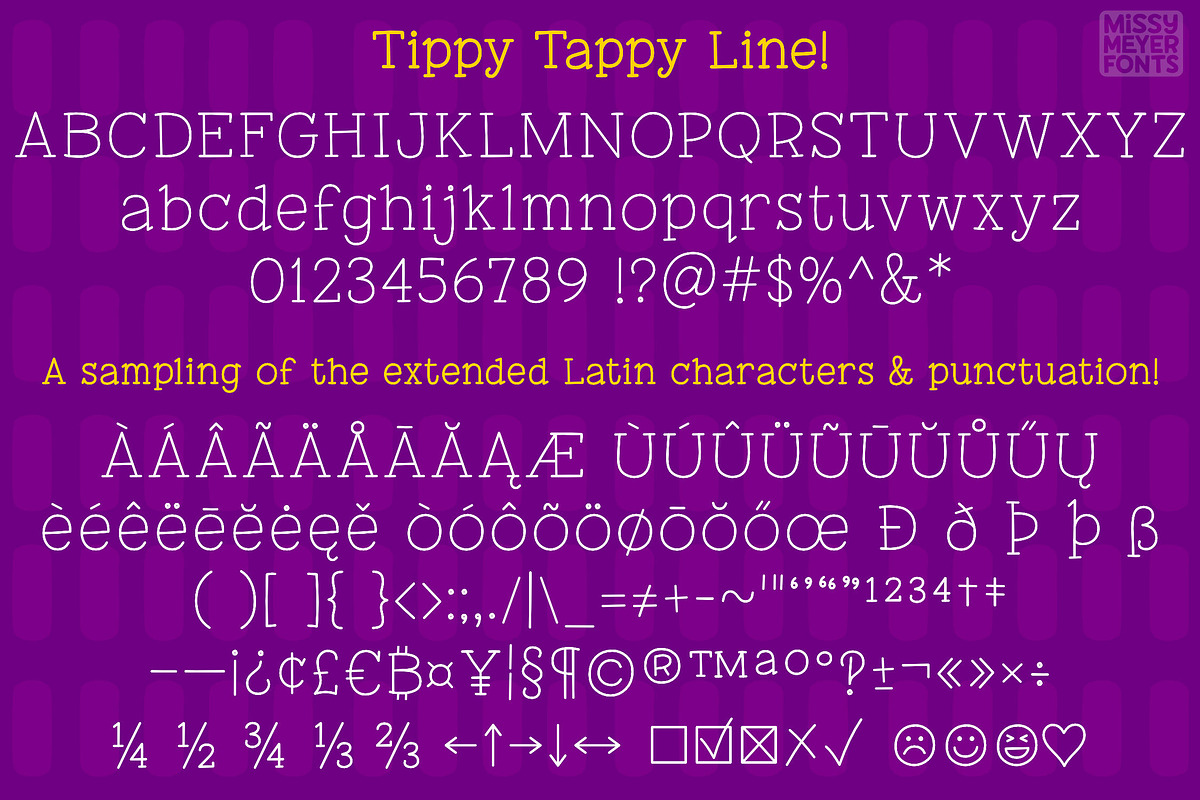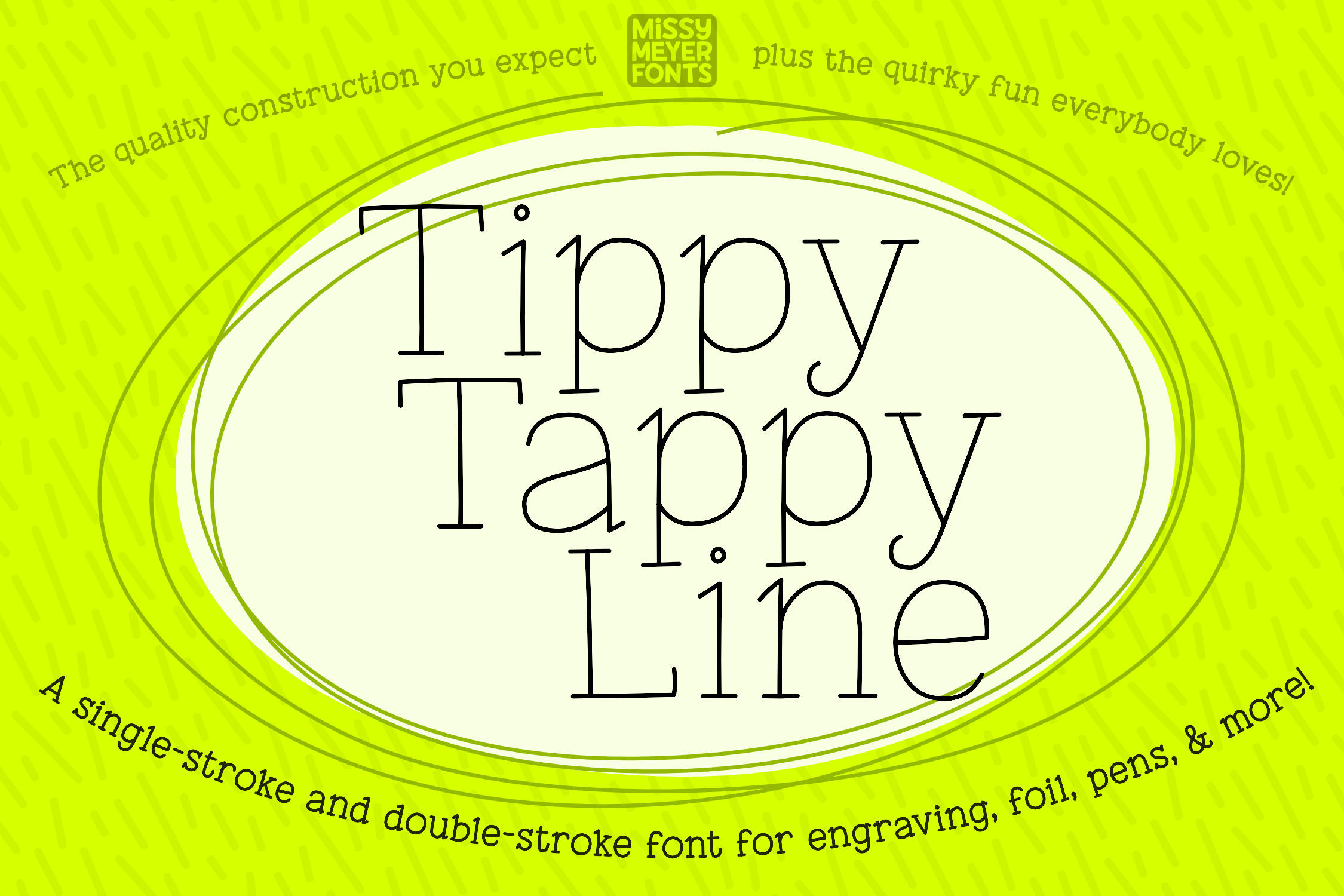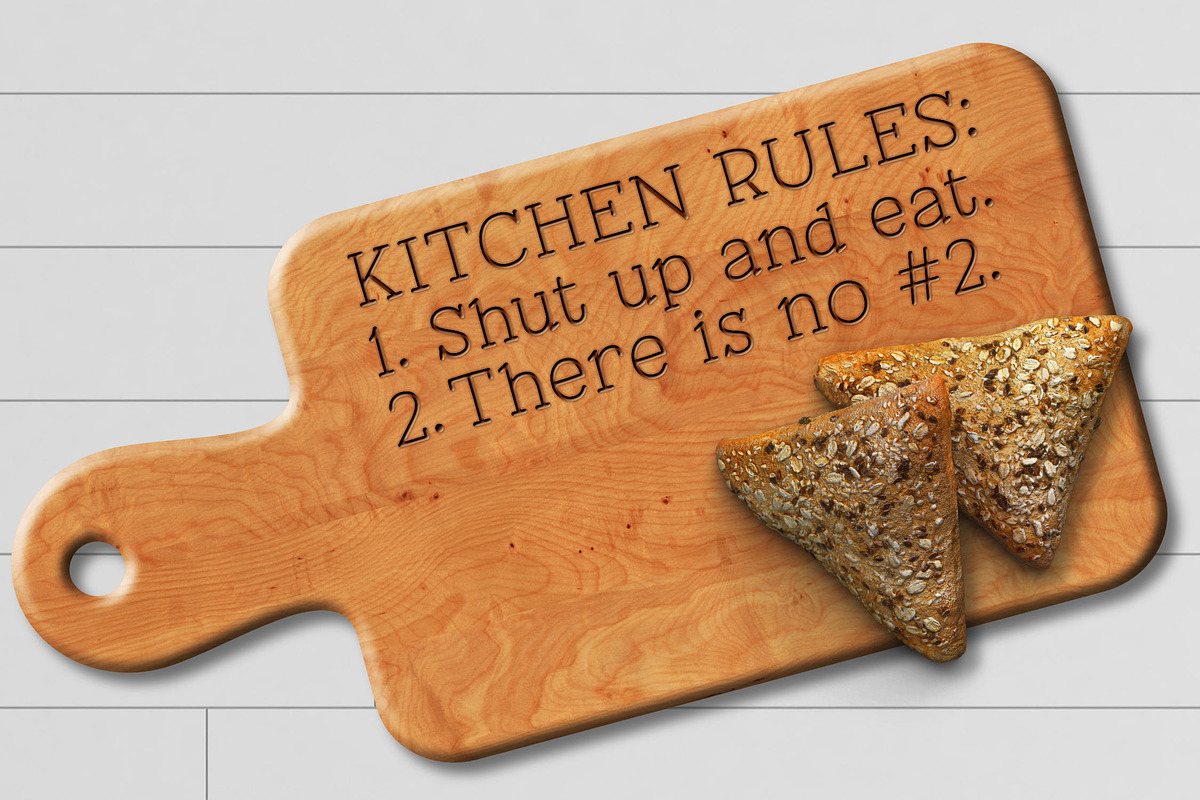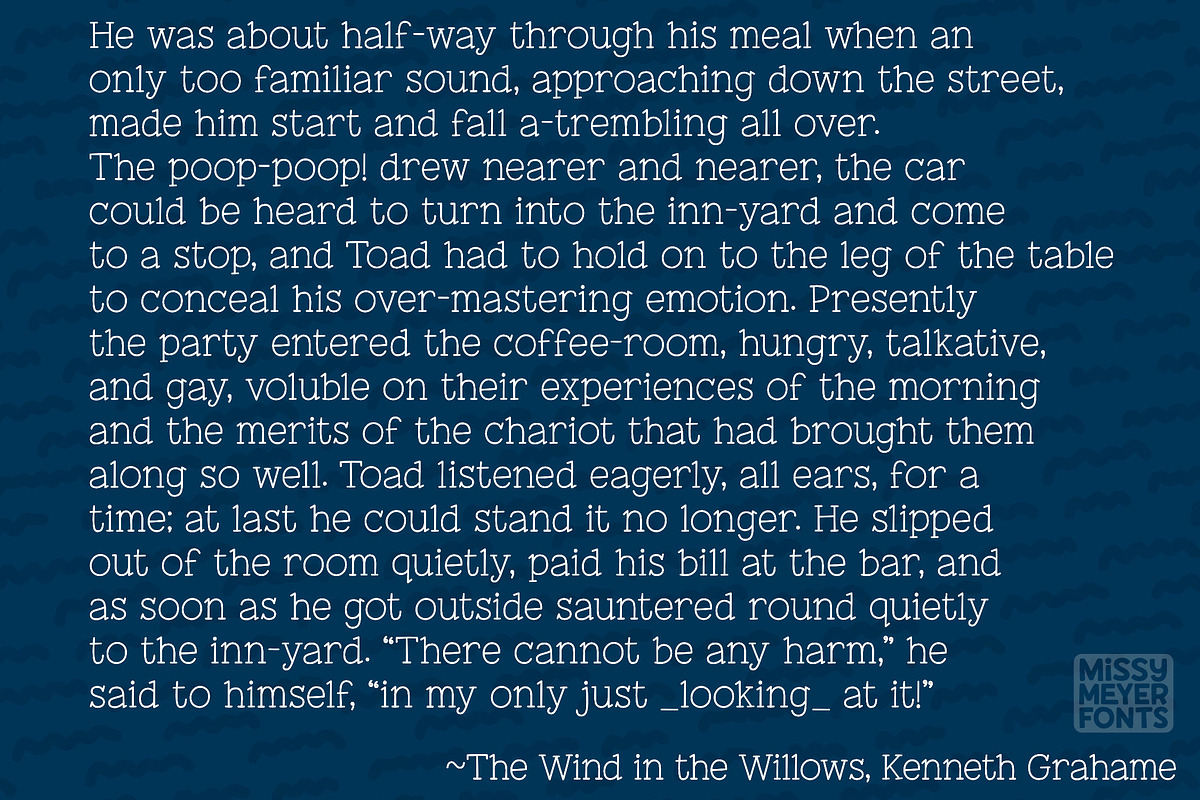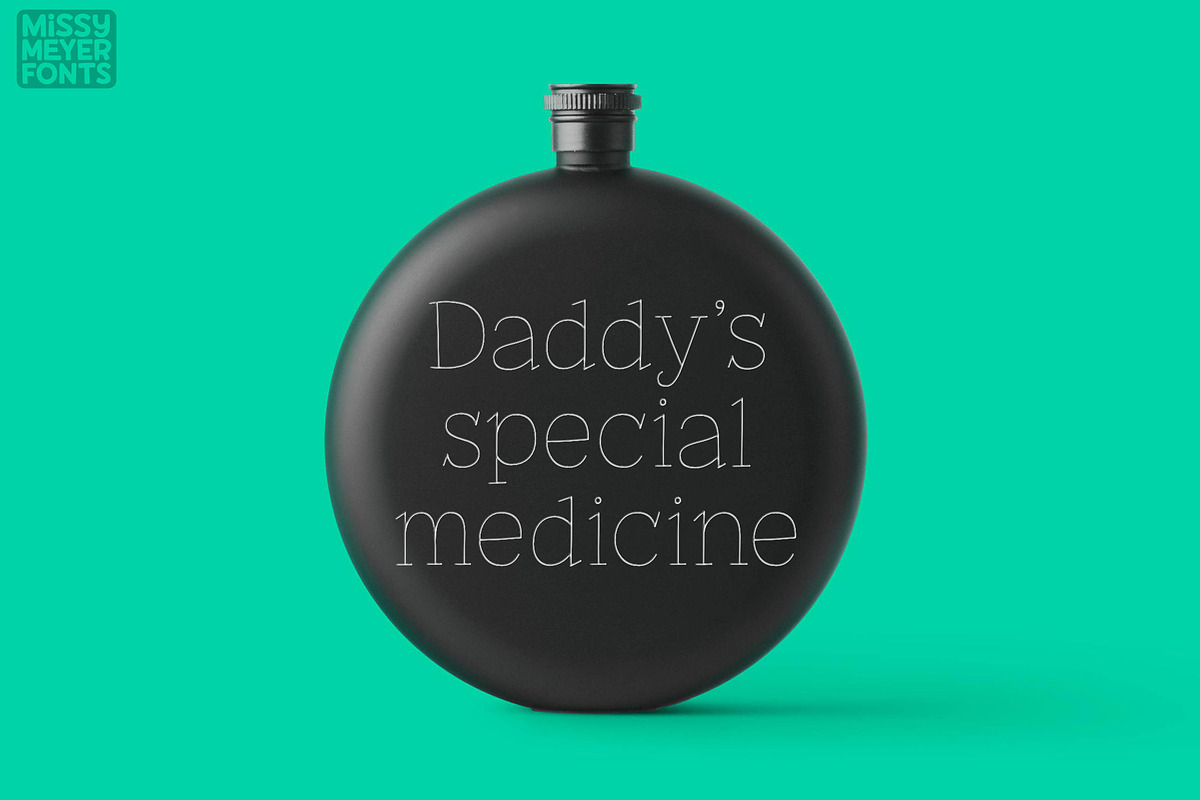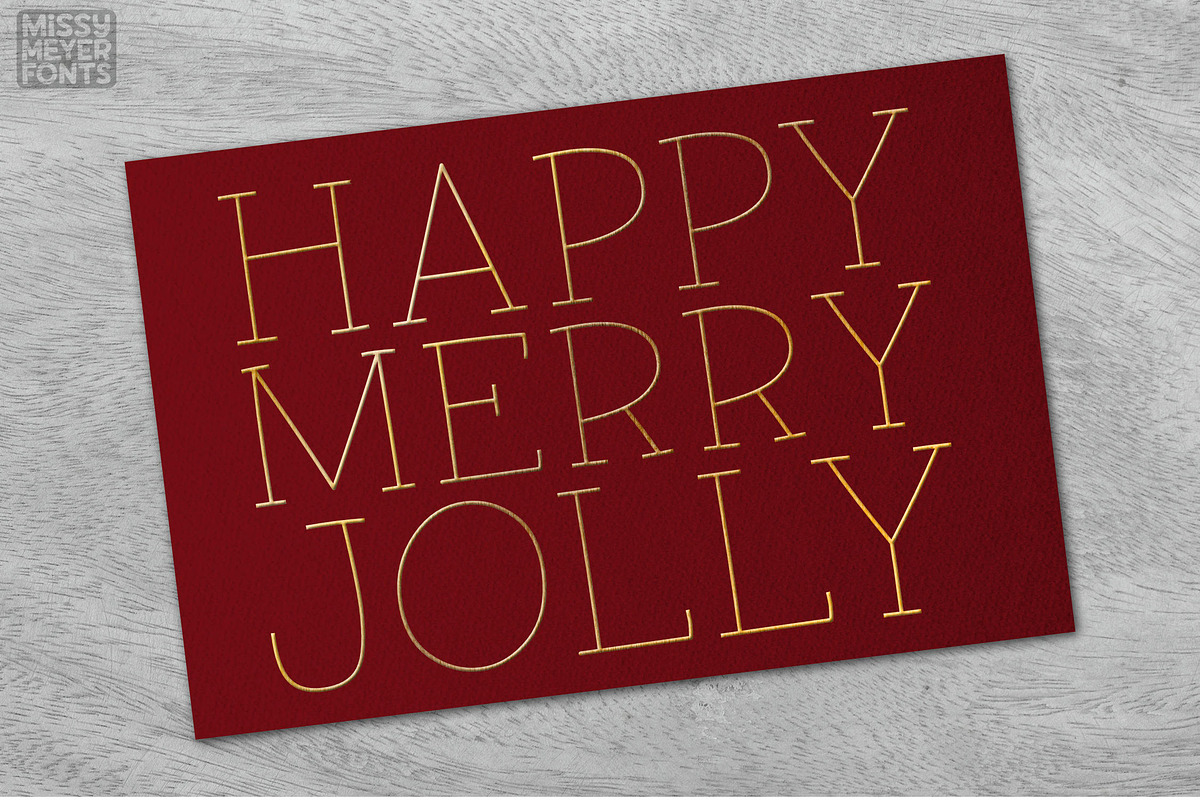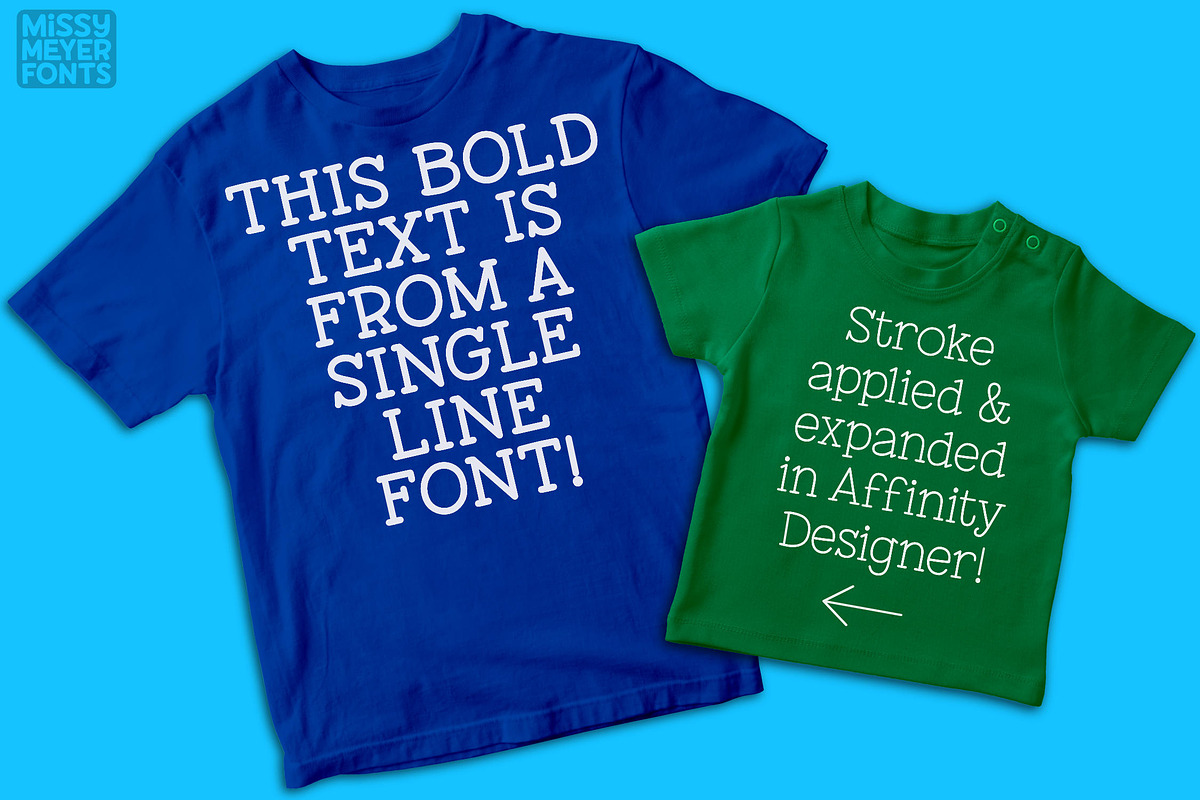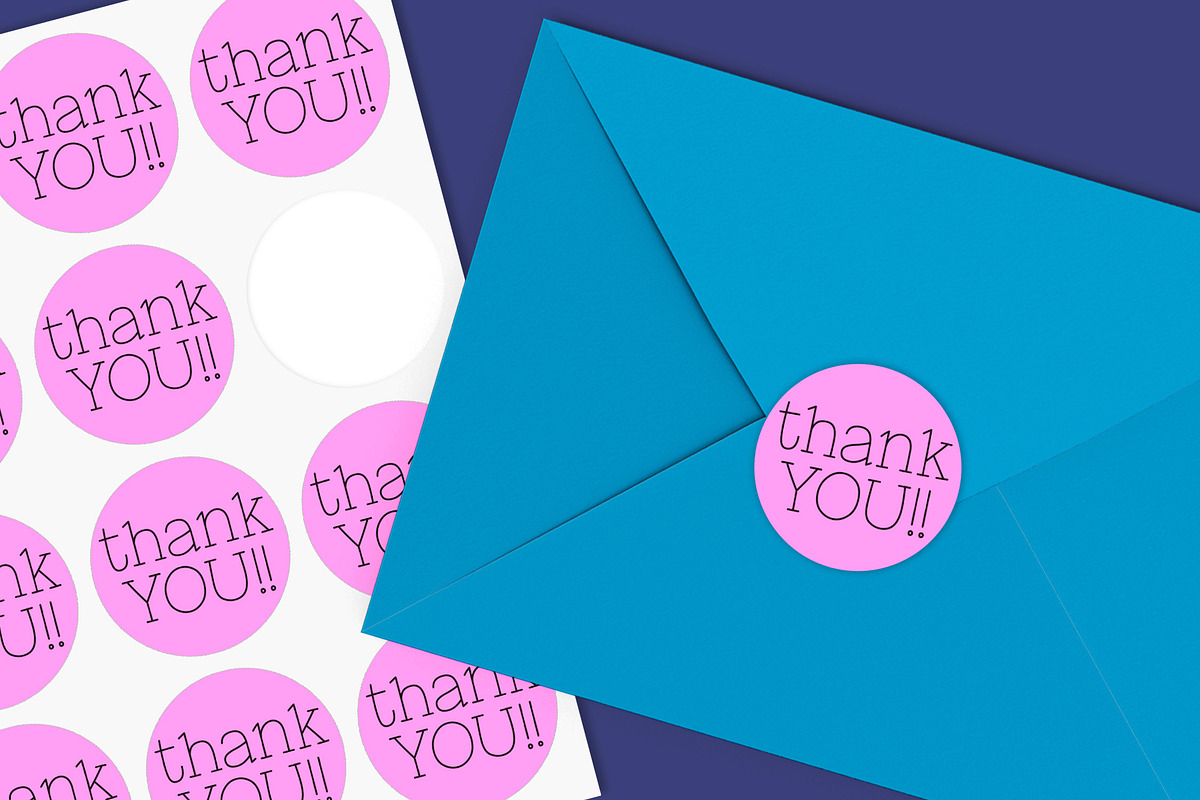
Tippy Tappy Line - single-line font
Tippy Tappy Line is a single-line font built from my "Tippy Tappy Type" outline font. It has a fun hand-crafted typewriter style that works for tons of projects, from greeting cards to jewelry to cutting boards!
The font contains the full Basic Latin 95-character set (A-Z, a-z, 0-9, lots of punctuation; basically everything that appears on an English-language keyboard), as well as the Latin-1 Supplemental and Latin Extended-A character sets for language support; some extra punctuation; and several handy arrows and shapes. Supported languages range from English to Icelandic, from Spanish to Swedish!